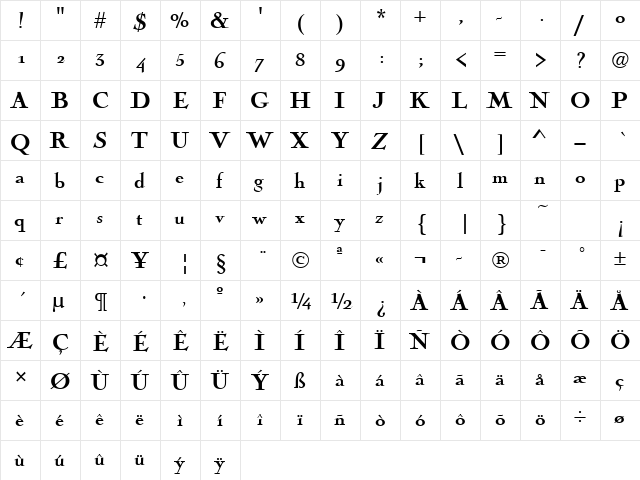
NicolasCochin Bold Font Preview
NicolasCochin Bold
Design Context for NicolasCochin Typeface
NicolasCochin takes a measured approach to typography — its balanced proportions and neutral character make it a reliable workhorse for both digital and print work. The heavy weight commands attention and anchors typographic hierarchies.